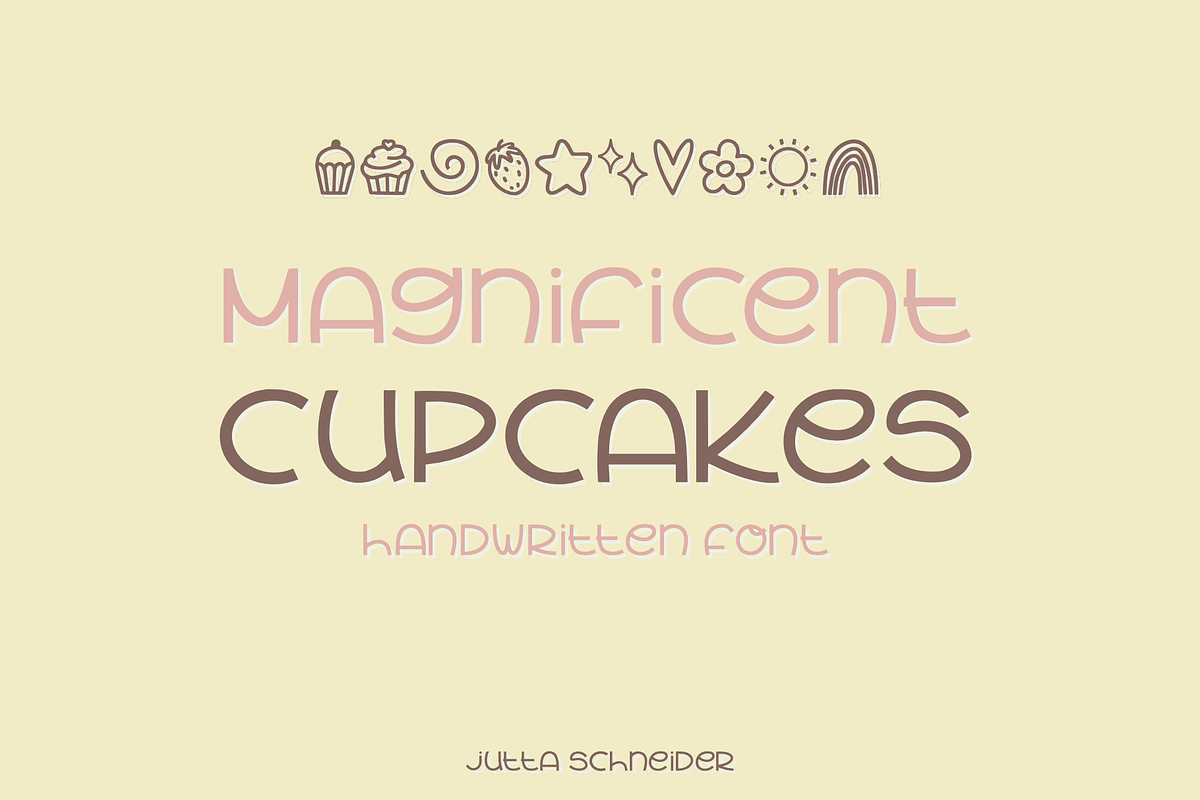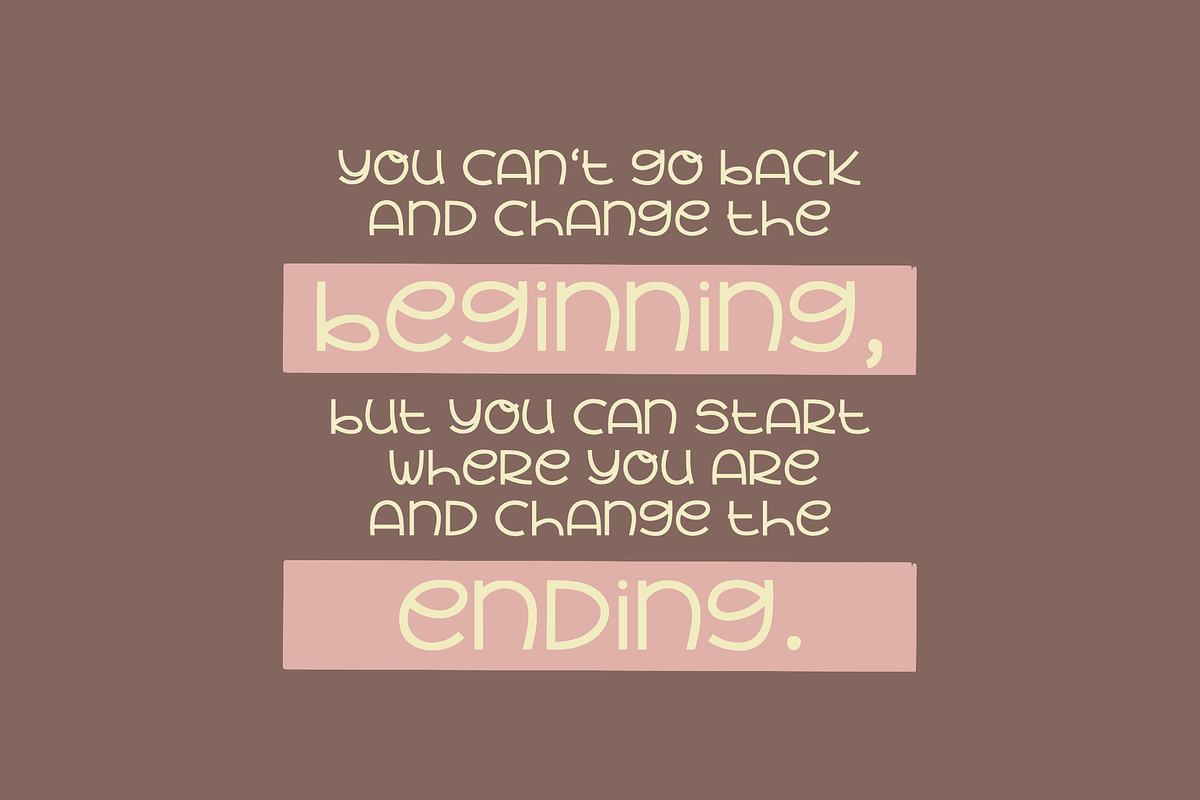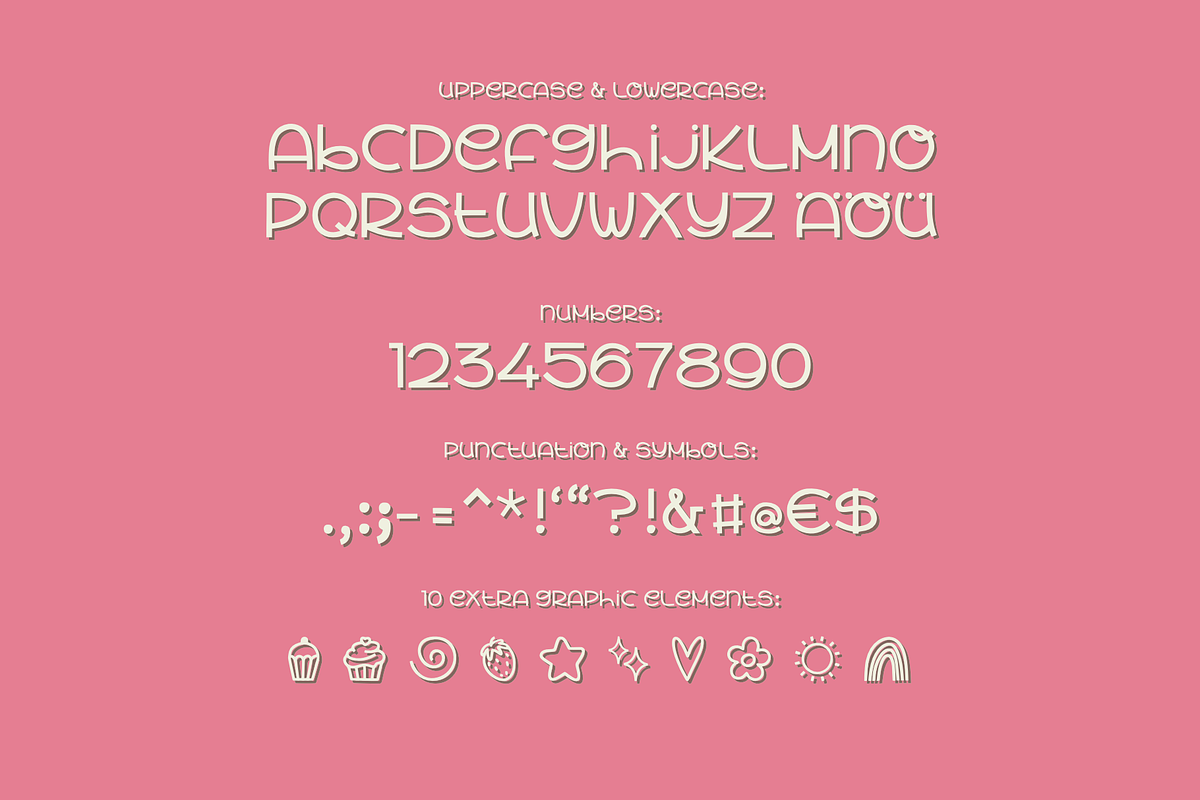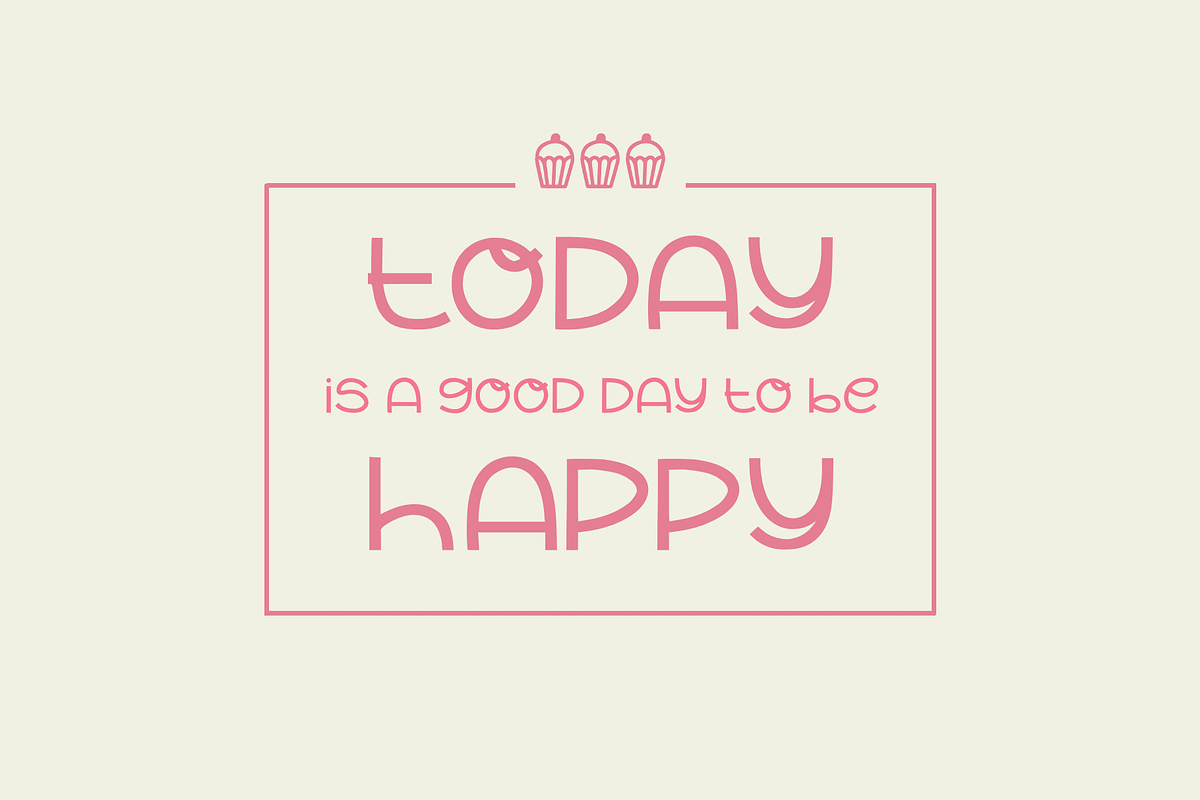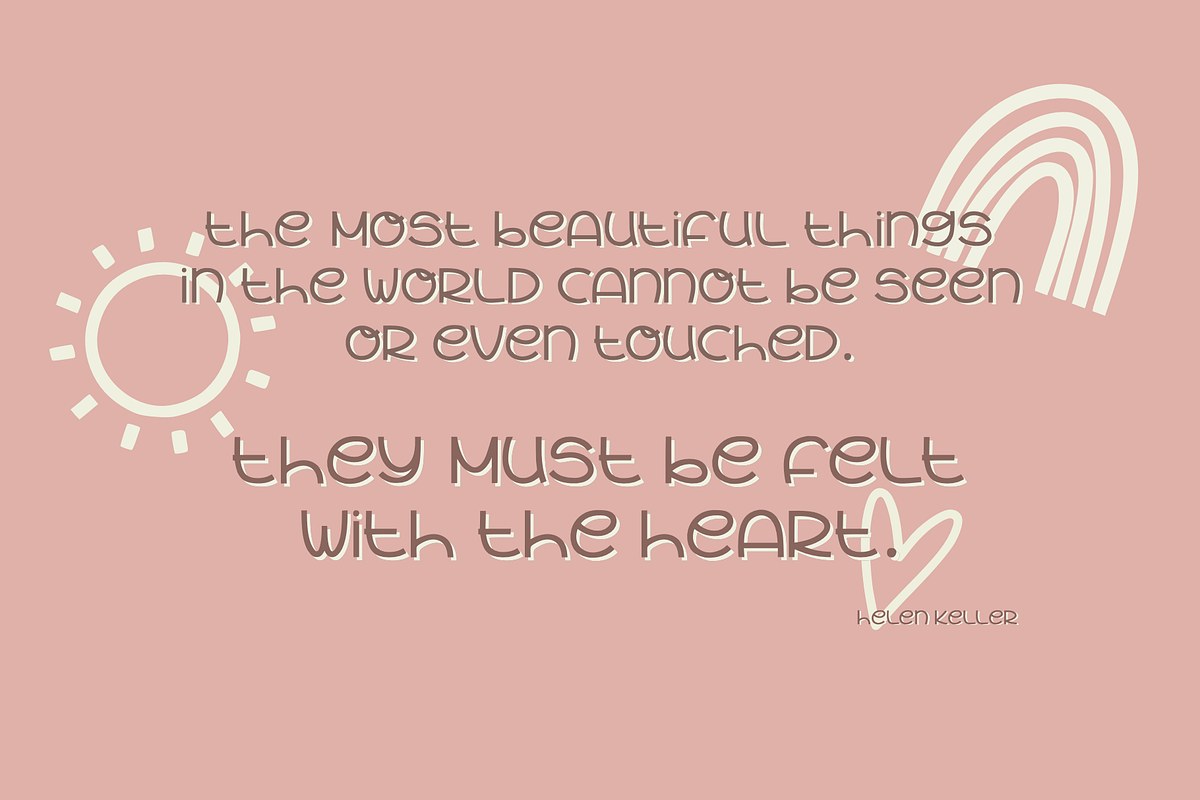
Magnificent Cupcakes
Have fun with this cute, yet elegant display font!
With this font you will get 86 characters containing letters, punctuation, symbols and numbers. All characters are handdrawn. I made sure to add symbols used for social media etc. Additionally you can find 10 cute doodles that work with certain keys on your keyboard. The key for the keyboard layout is included in the package as well.
Create greeting cards, editorial designs or write letters, sayings, quotes with it. Set cute accents with the graphic elements included. Bring some cuteness out in the world!